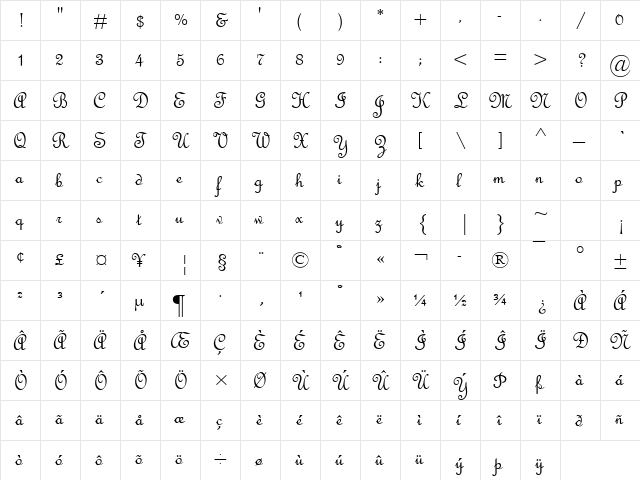
French Script MT Regular
Design Context for French Script MT Typeface
French Script MT flows with the natural rhythm of handwritten lettering, making it ideal for designs that call for warmth and personal expression.
Font Pairing: Combine French Script MT with a simple geometric sans for maximum contrast — the tension between flowing curves and clean structure is a classic typographic pairing.
Pro Tip: Pair French Script MT with a clean sans-serif for supporting text. The contrast between fluid script and geometric structure creates an elegant typographic hierarchy.